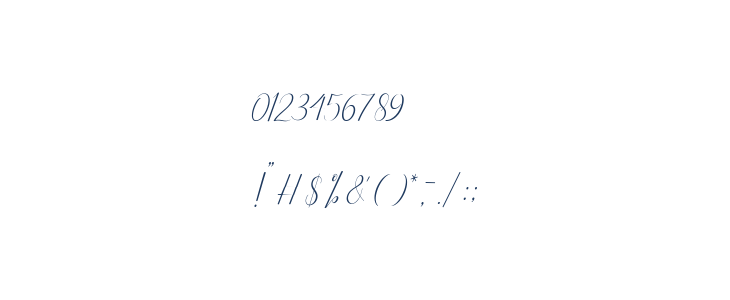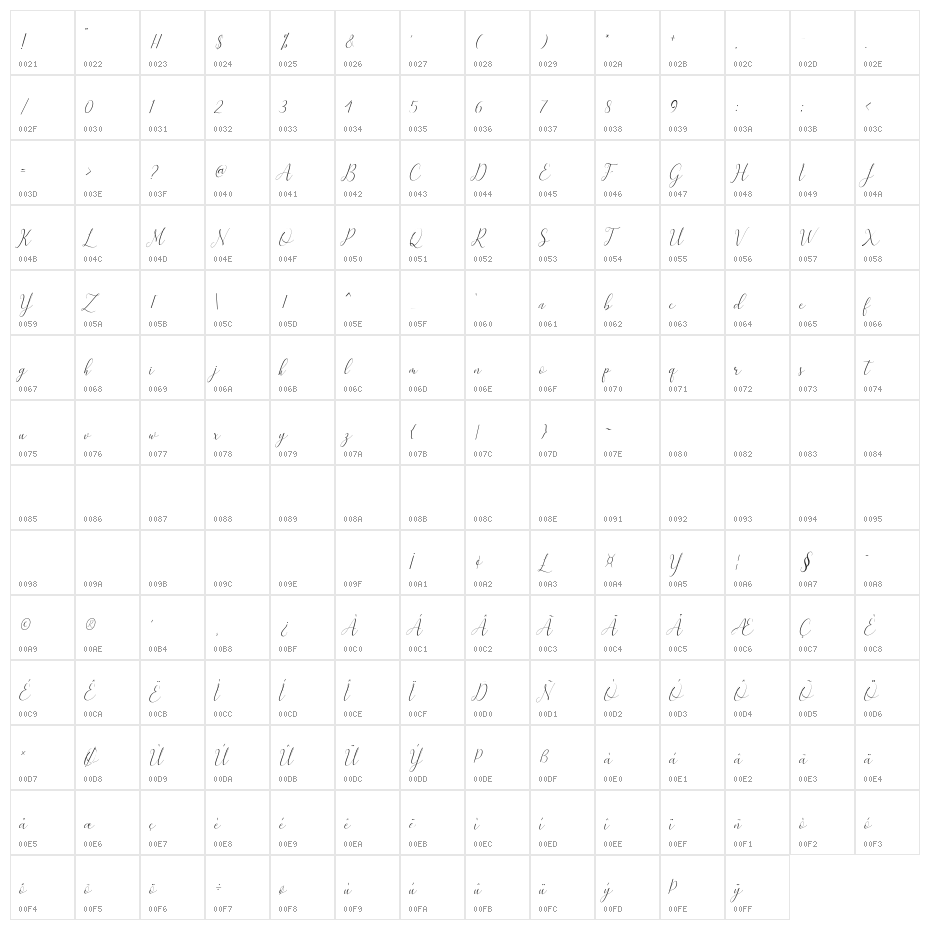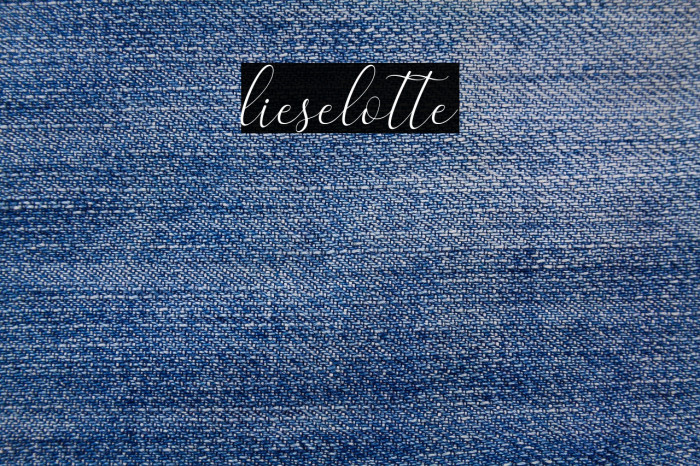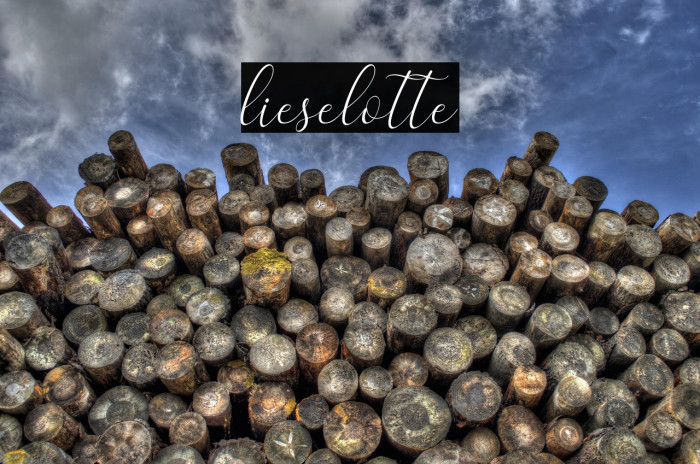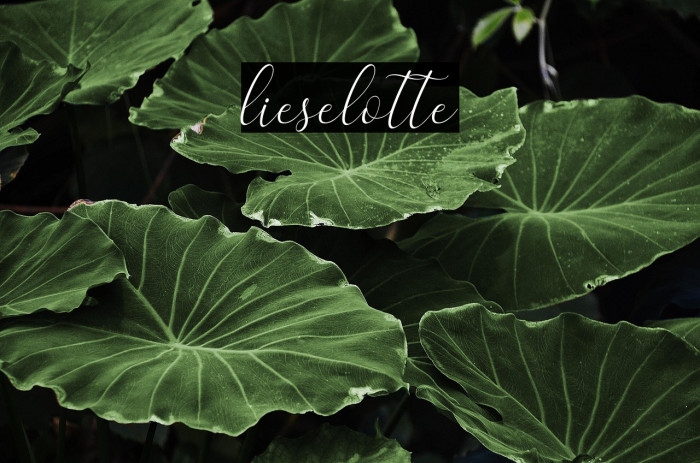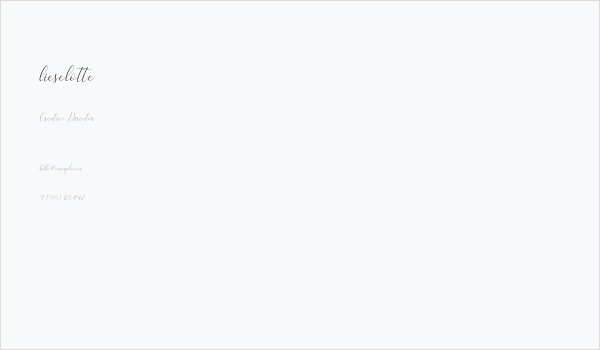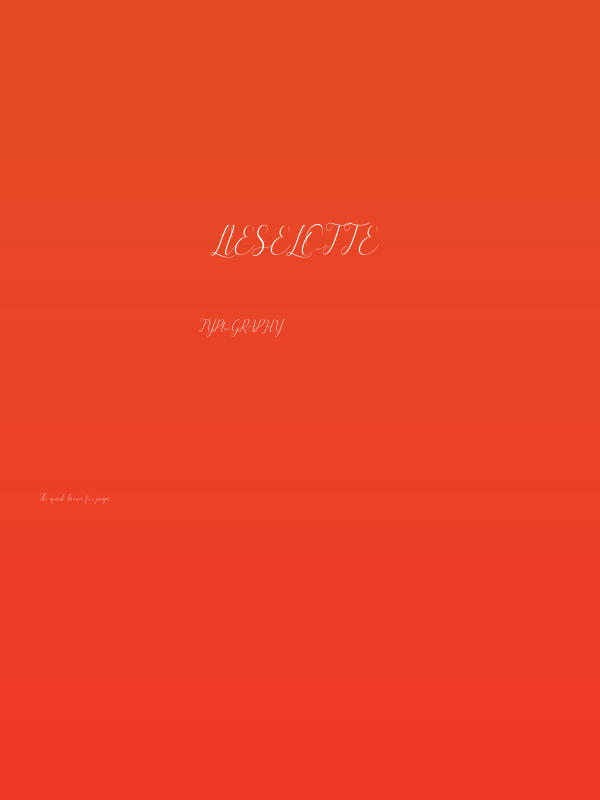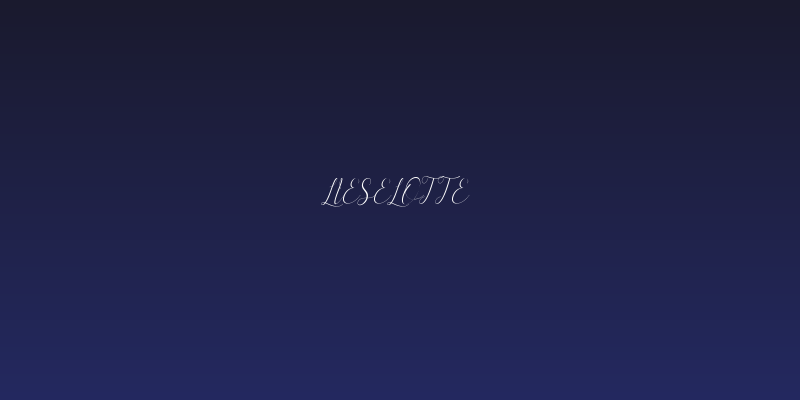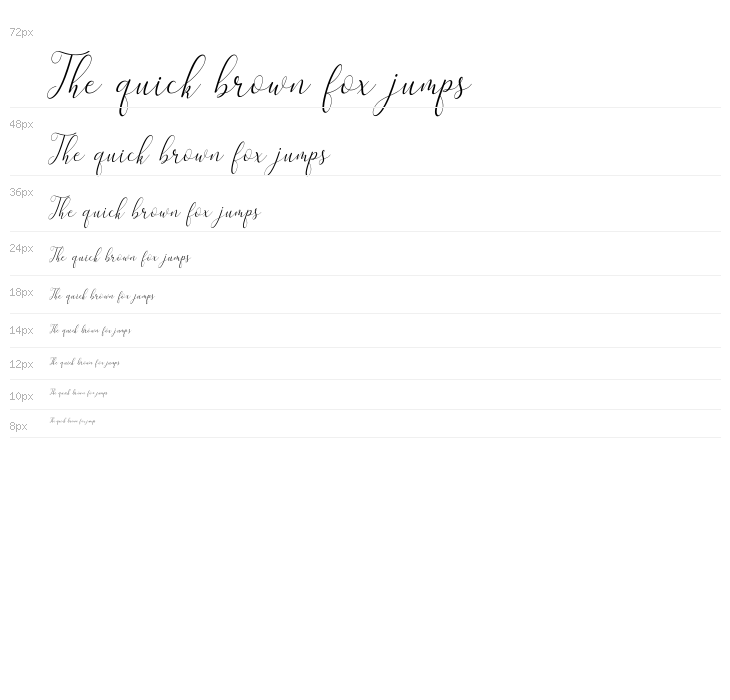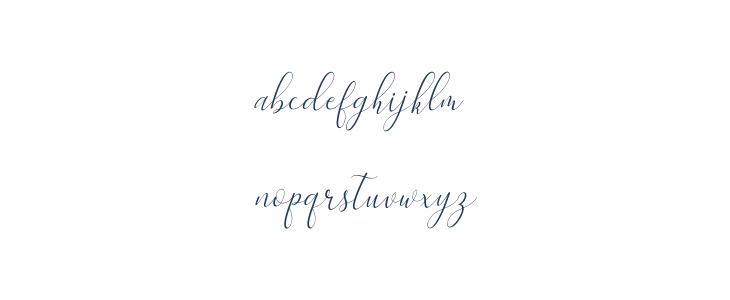
lieselotte Font
lieselotte Description
This elegant script font features fluid, flowing strokes that mimic the natural movement of handwriting. The uppercase letters are characterized by their tall, graceful loops and sweeping curves, while the lowercase letters maintain a consistent, delicate flow. The numerals are designed with a similar elegance, ensuring a cohesive look across all characters. The special characters are thoughtfully integrated, maintaining the font's sophisticated style. This font is perfect for projects that require a touch of elegance and sophistication, such as wedding invitations, formal event programs, or luxury branding.
| Use Case | Headlines, Invitations, Branding |
| Proposed Projects | Ideal for wedding invitations, formal event programs, luxury branding, and elegant stationery. |